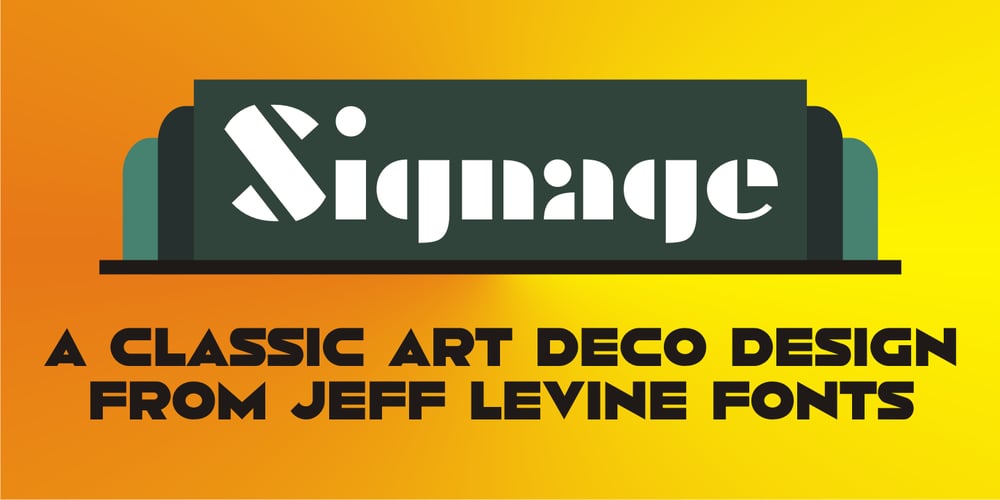
Signage JNL
Signage JNL font
Signage JNL Font Family was designed by published by Jeff Levine. Signage JNL contains 1 styles and family package options. Signage JNL shows the heavy influence of the perennial favorite Futura Black with a couple of minor changes here and there. The design was inspired by a set of British brass stencils for sale in an online auction.